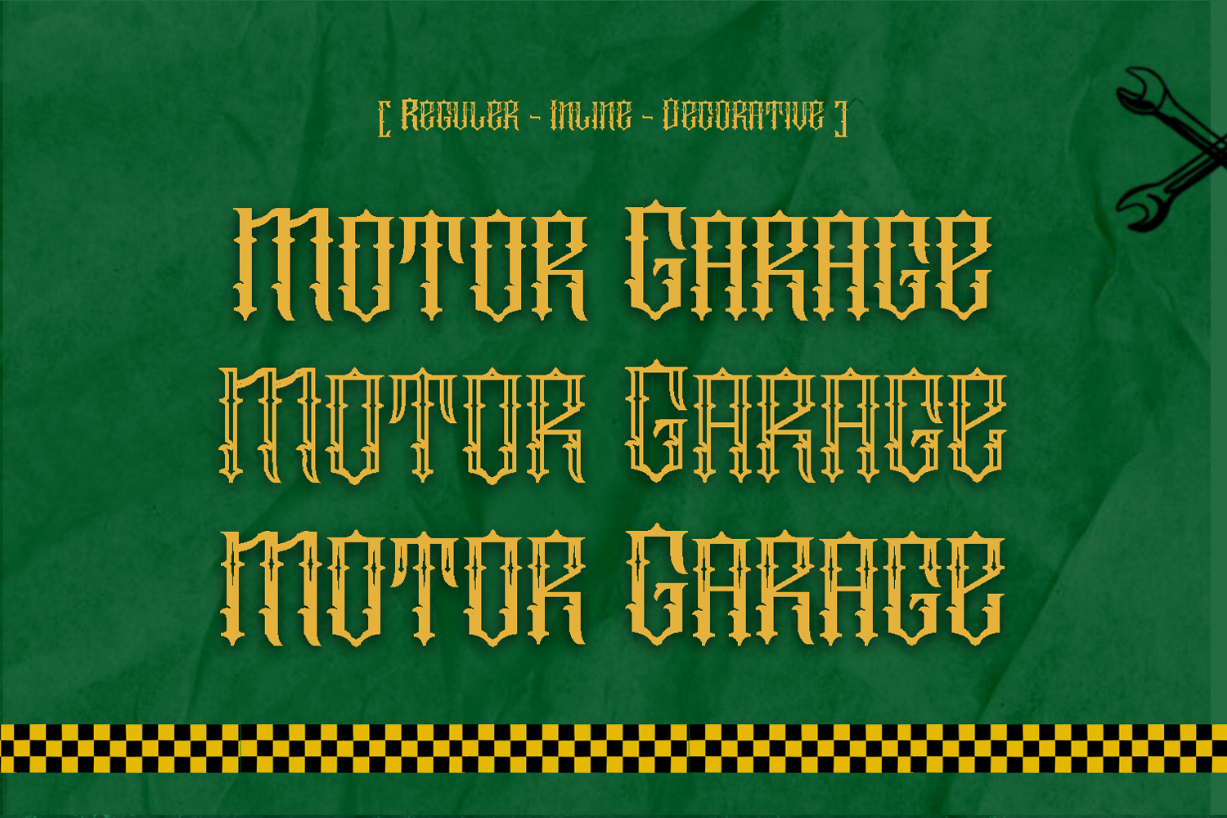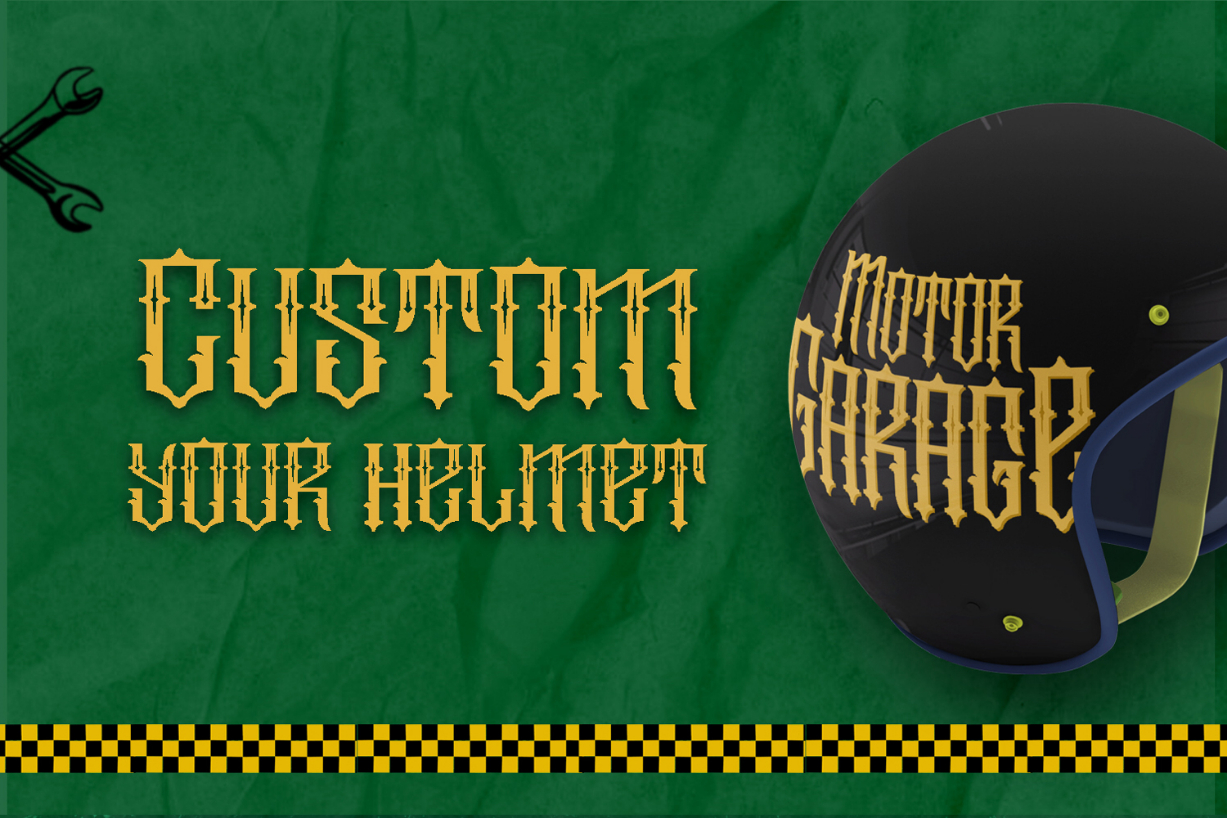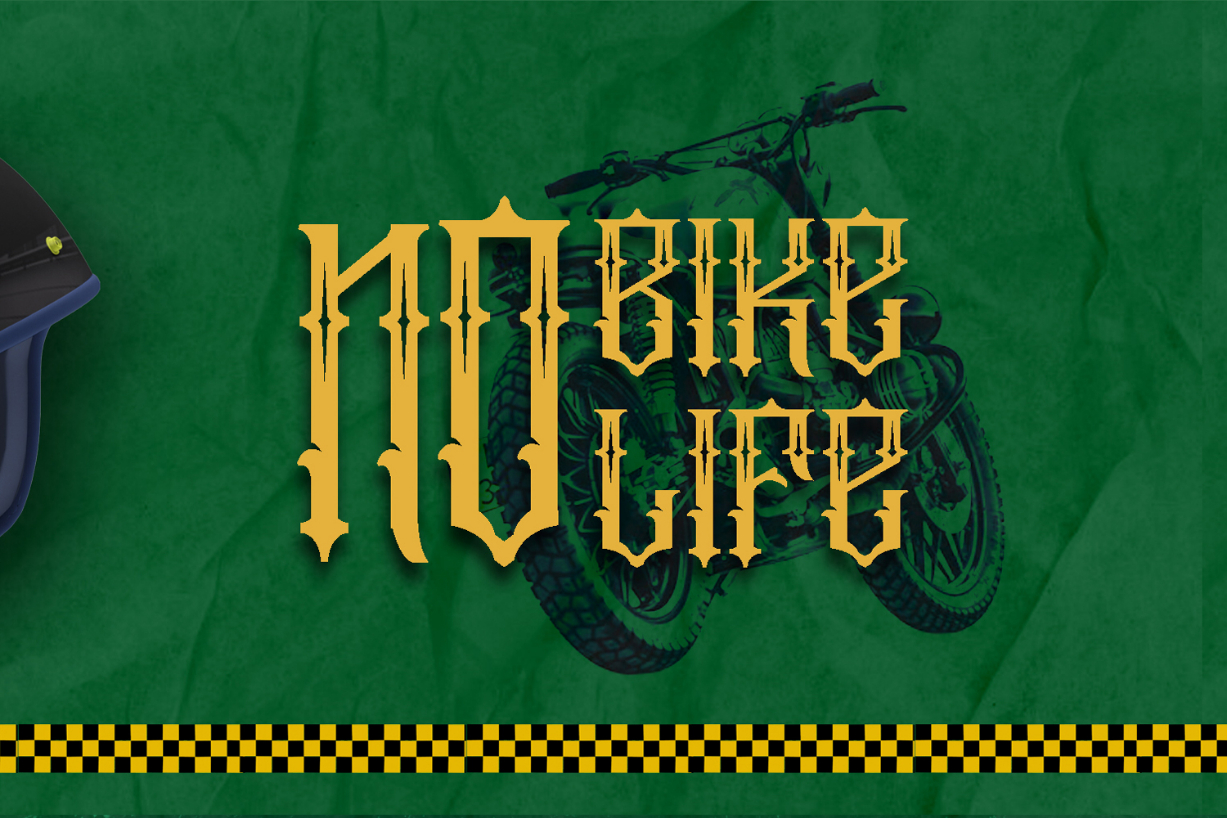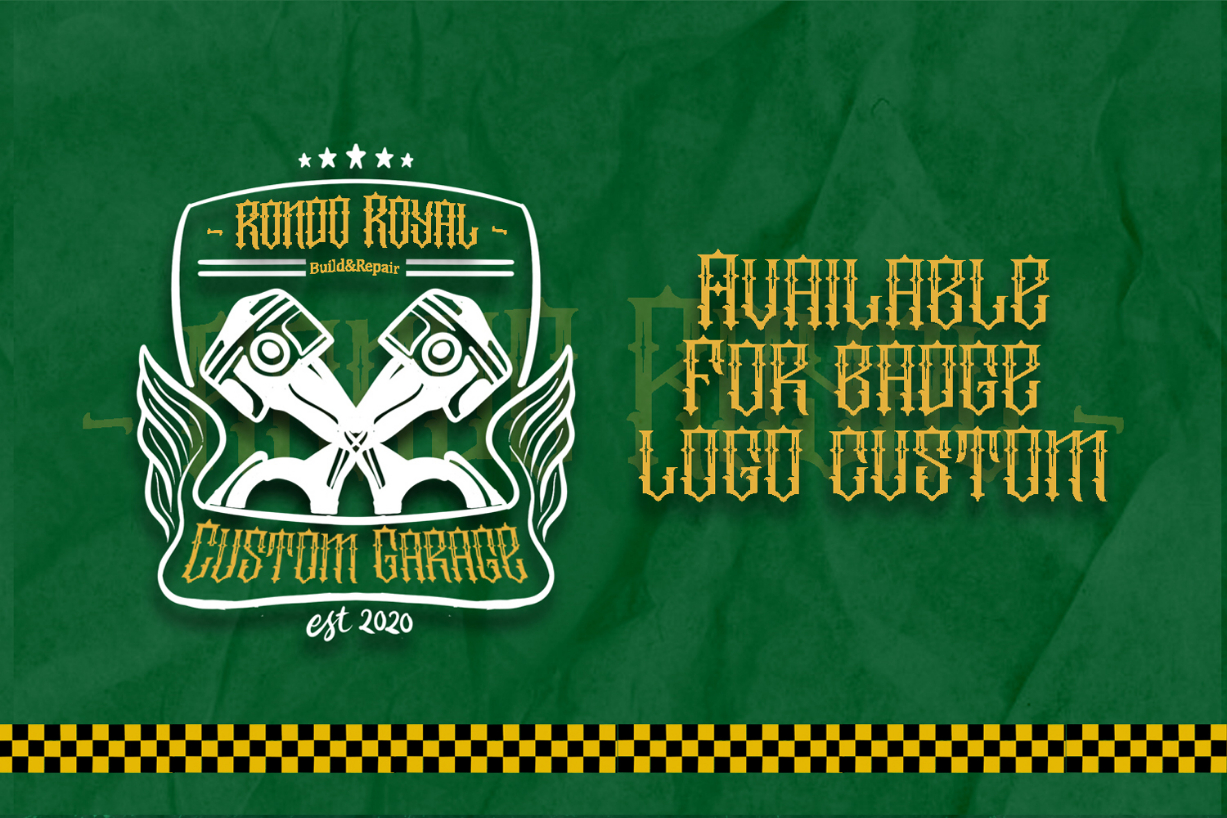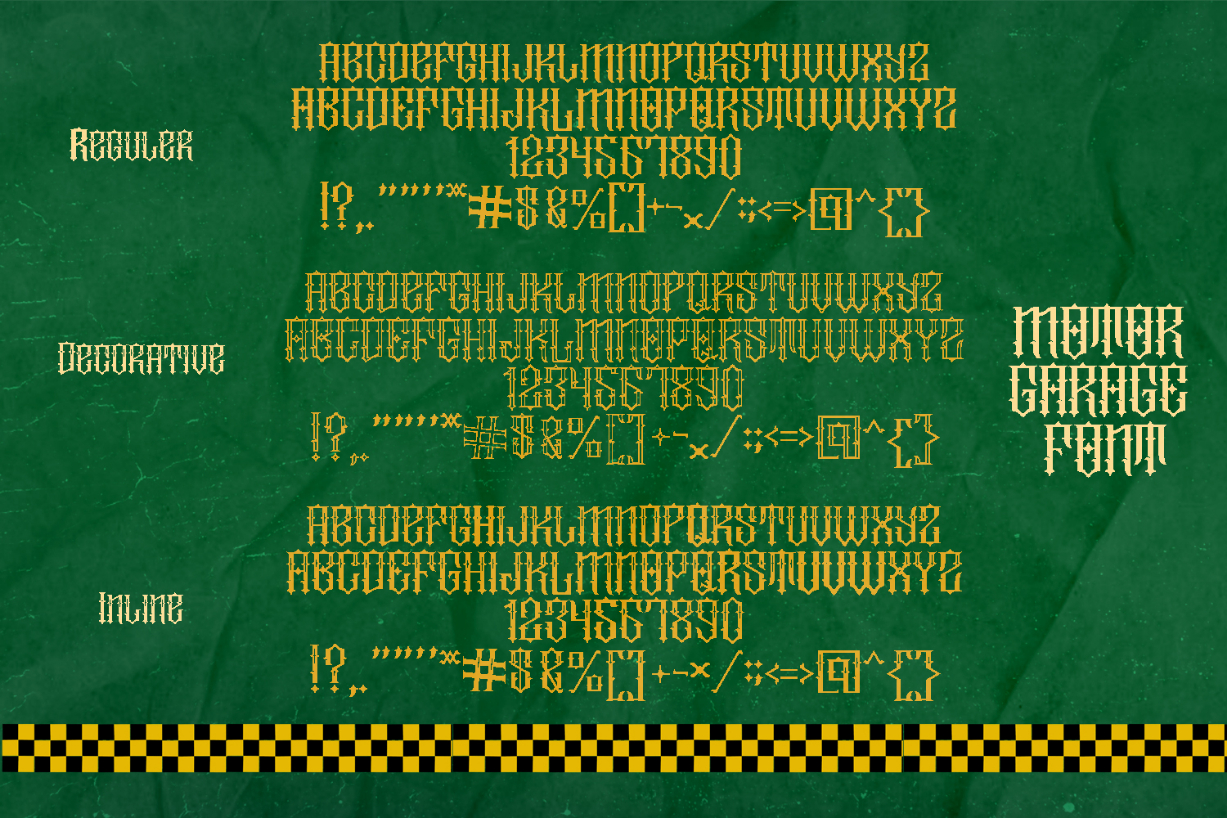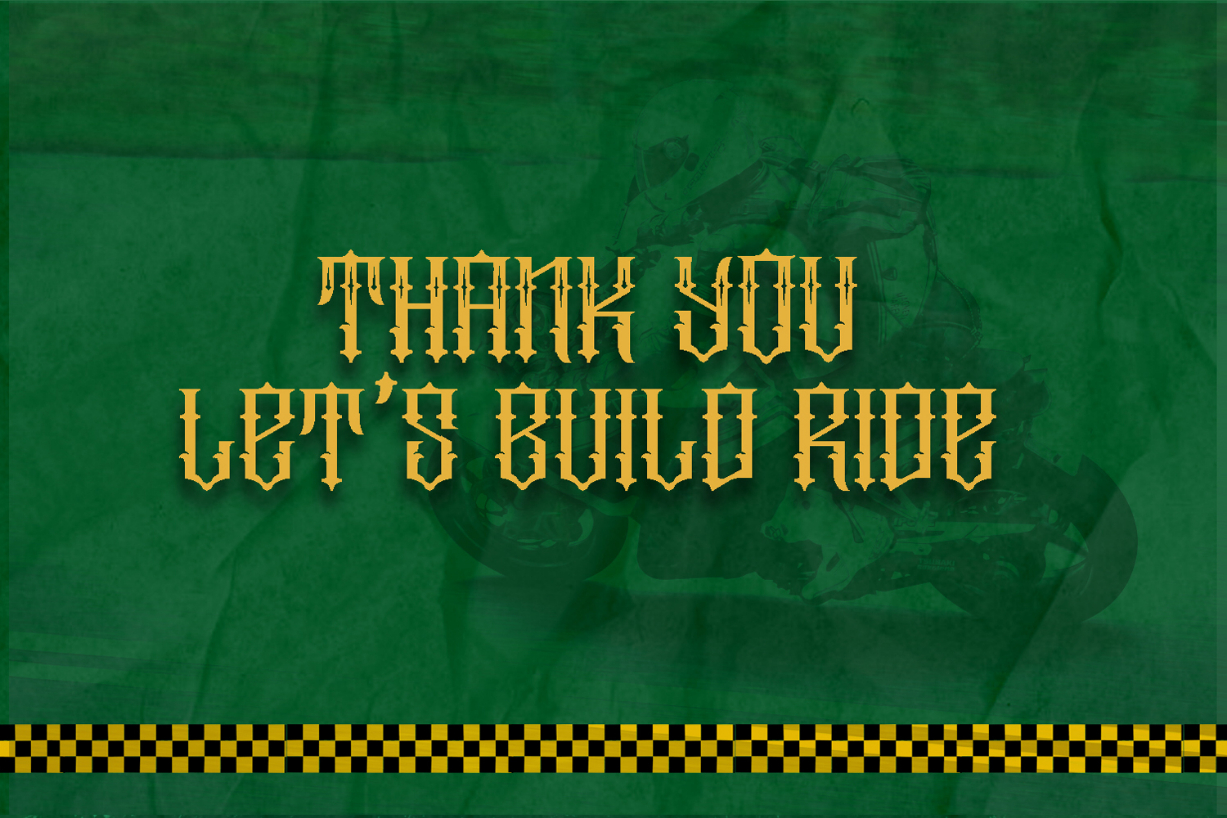
Motor Garage Font
About Motor Garage Font
Motor Garage is an amazing blackletter font. It has a great personality and features a vintage style that makes it the perfect font for adding a special retro touch to any design idea you can think of!